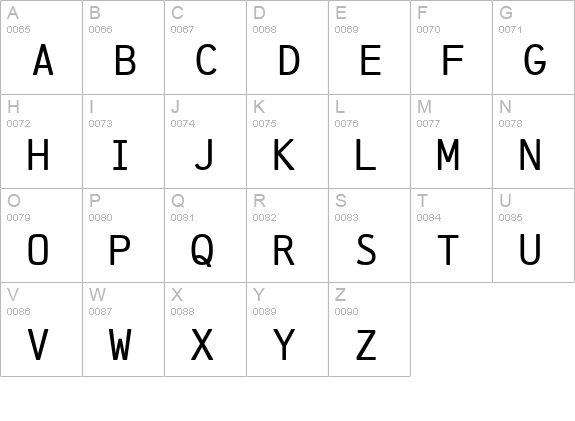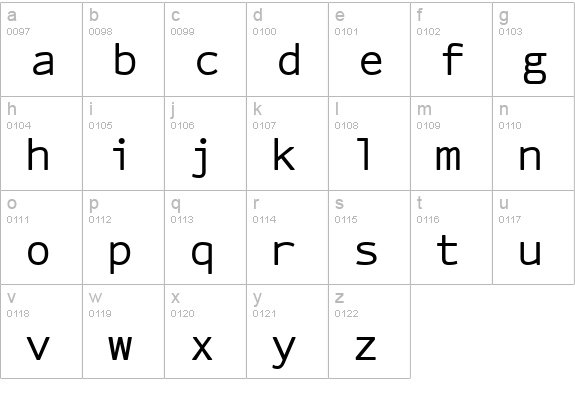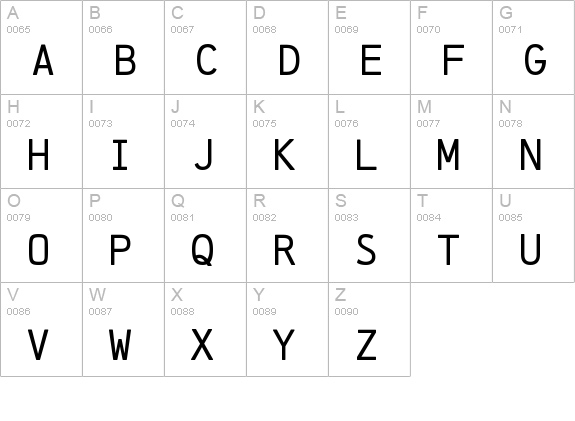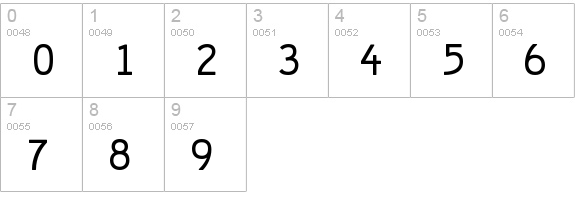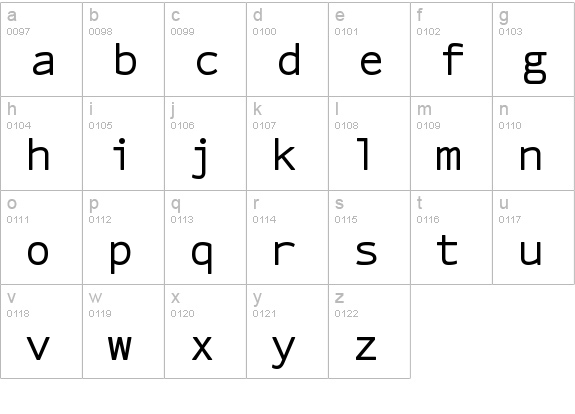
Linefeed font is a modern and stylish typeface that exudes a sense of sophistication and elegance. With its clean lines and sleek design, Linefeed is the perfect choice for projects that require a touch of contemporary flair. This versatile font is suitable for a wide range of applications, from branding and advertising to editorial design and web content. What sets Linefeed apart is not only its aesthetic appeal but also its accessibility. This font is available for free download at FontsMarket.com, making it easy for designers and creatives to incorporate it into their projects without any cost. Whether you're working on a personal project or a commercial endeavor, Linefeed is a valuable addition to your font library. Embrace the sleek and modern look of Linefeed font and elevate your designs to new heights. Download it for free today at FontsMarket.com and let your creativity shine.